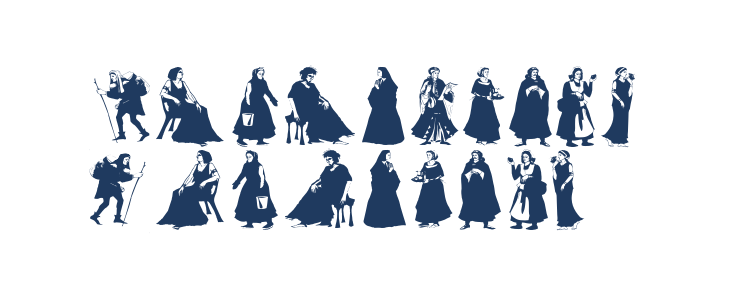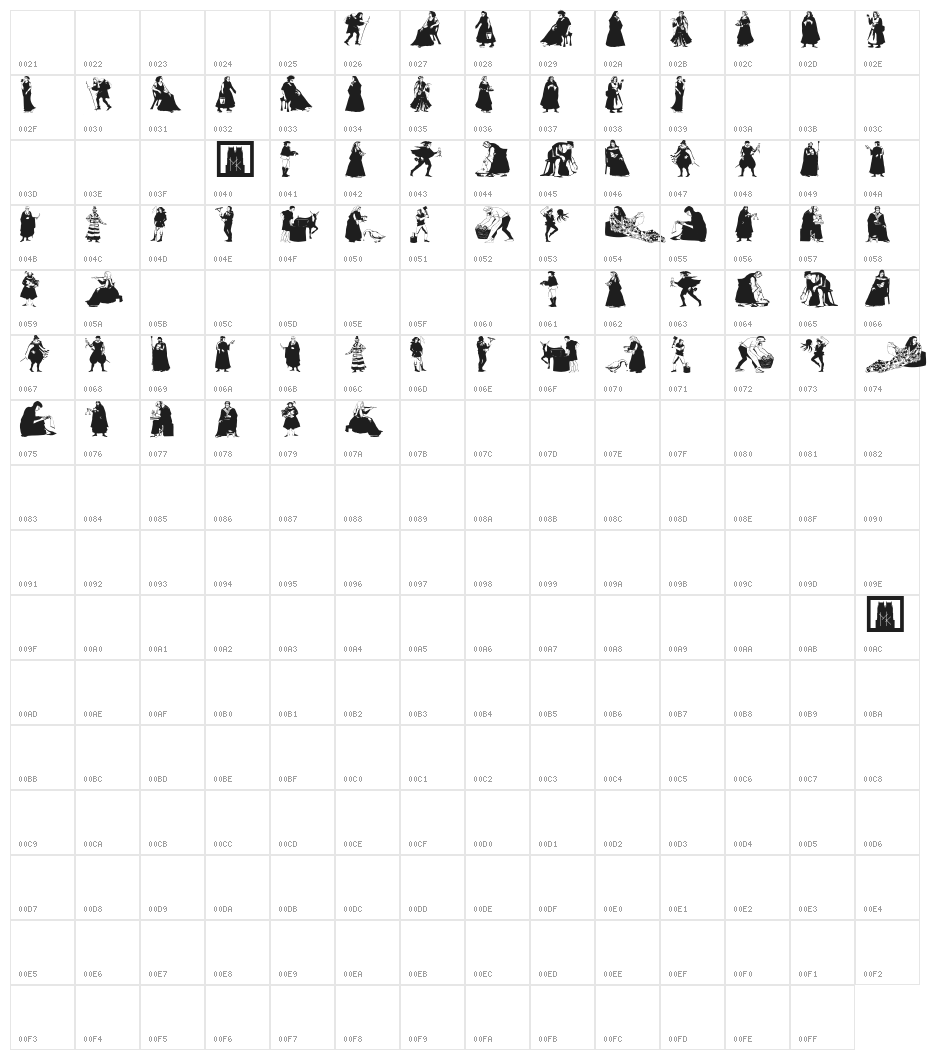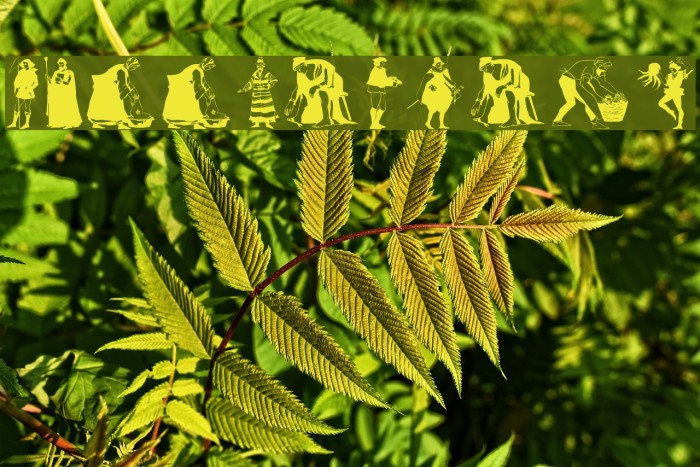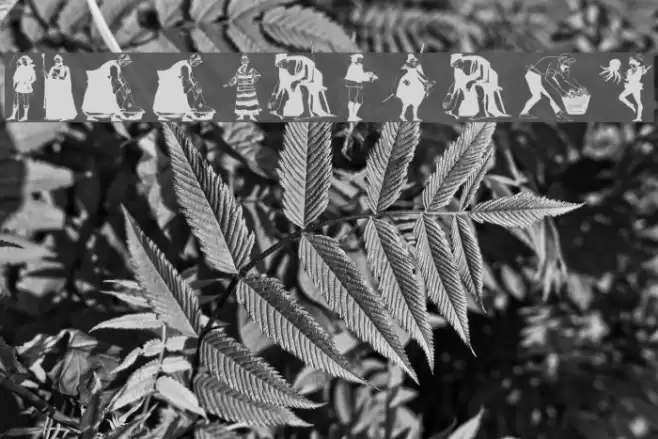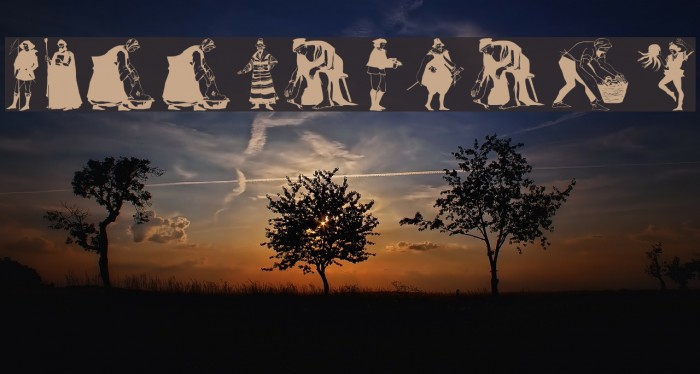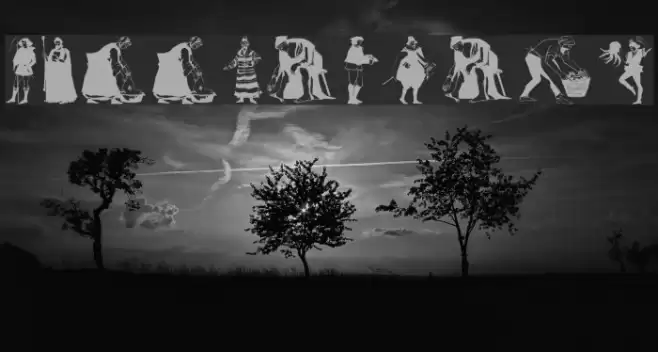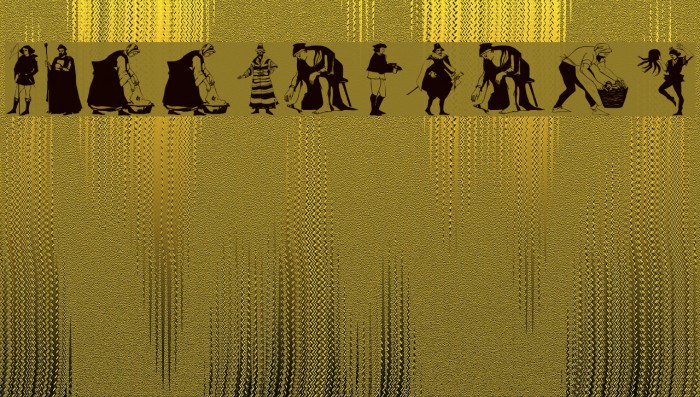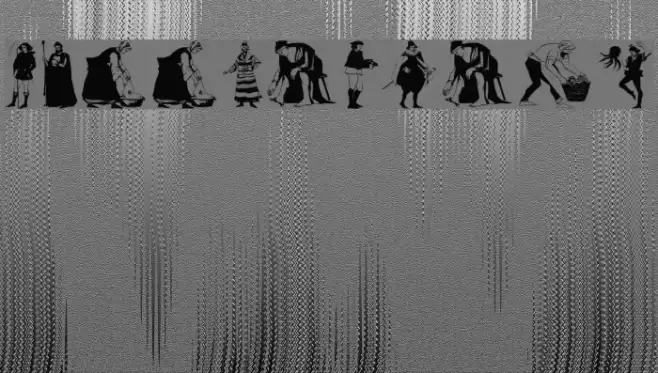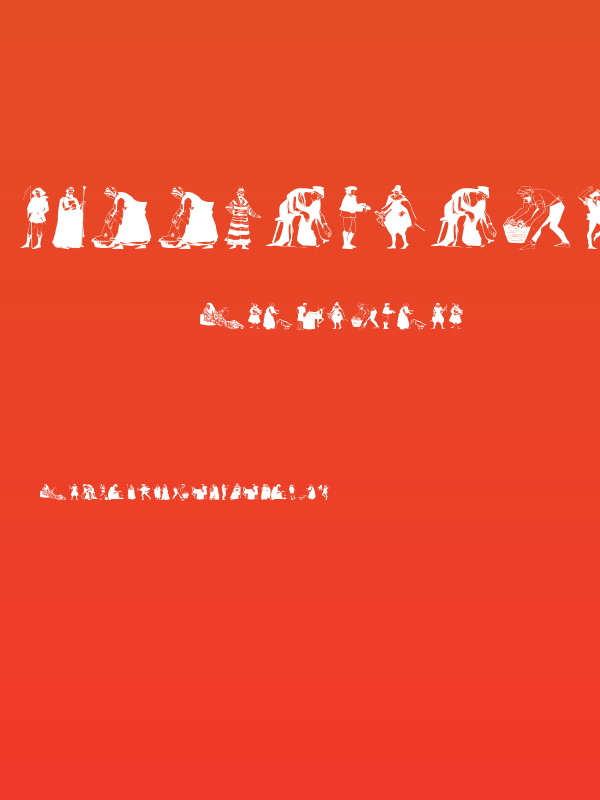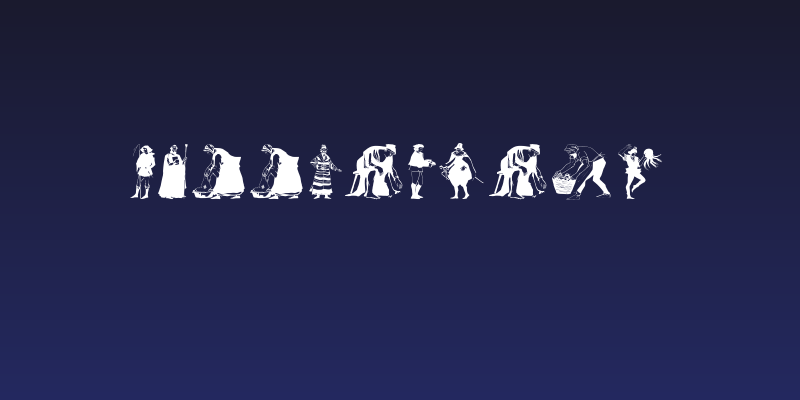
MiddleAgers Font
A decorative pictorial font featuring detailed black and white illustrations of medieval characters in various poses and attire, representing different roles and activities from the Middle Ages.
Overall StyleVintage, Historical
Use CaseHeadlines, Themed titles, Decorative elements
Proposed ProjectsHistorical publications, themed event posters, educational materials, fantasy or medieval game design, theatrical programs.